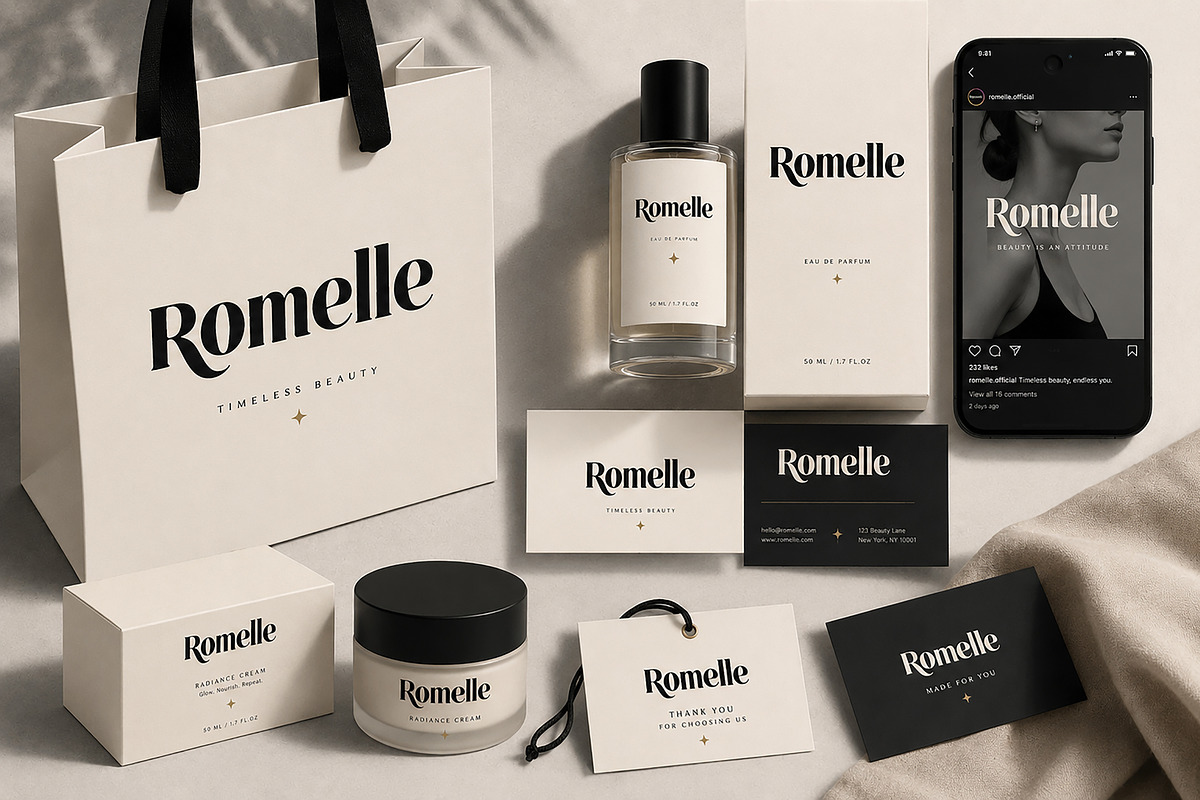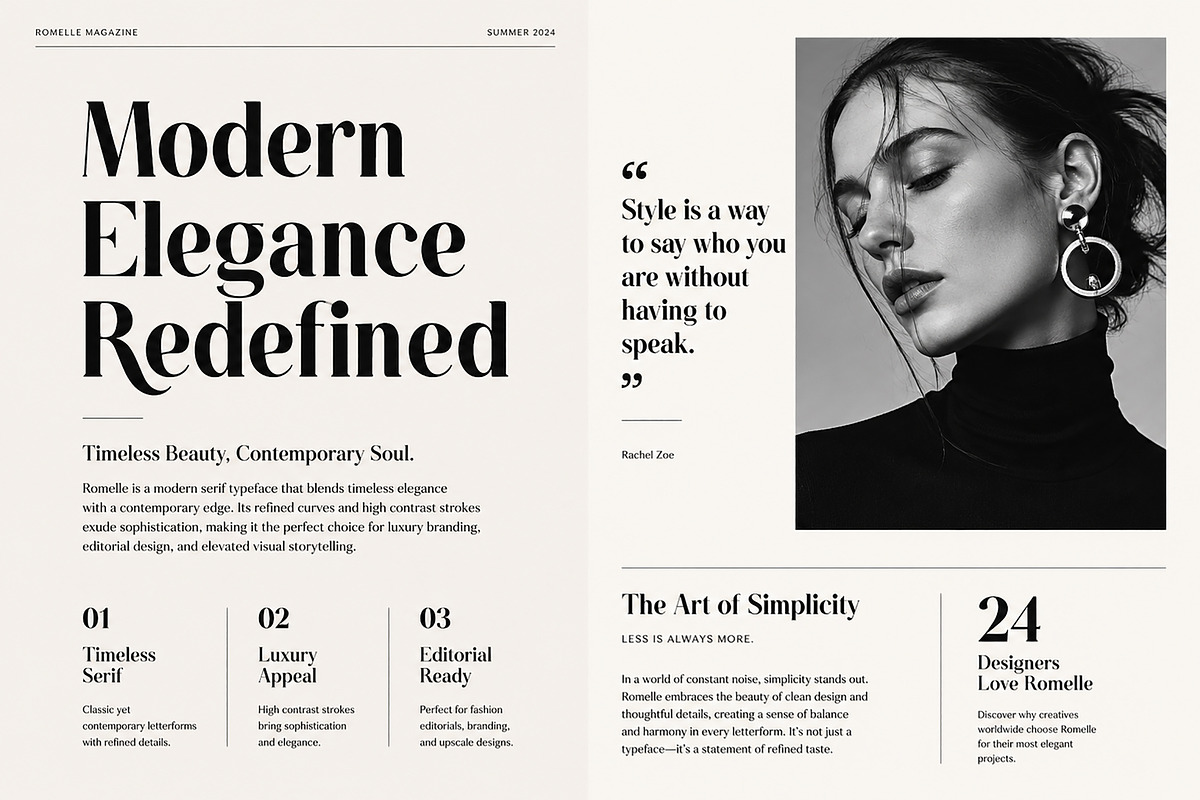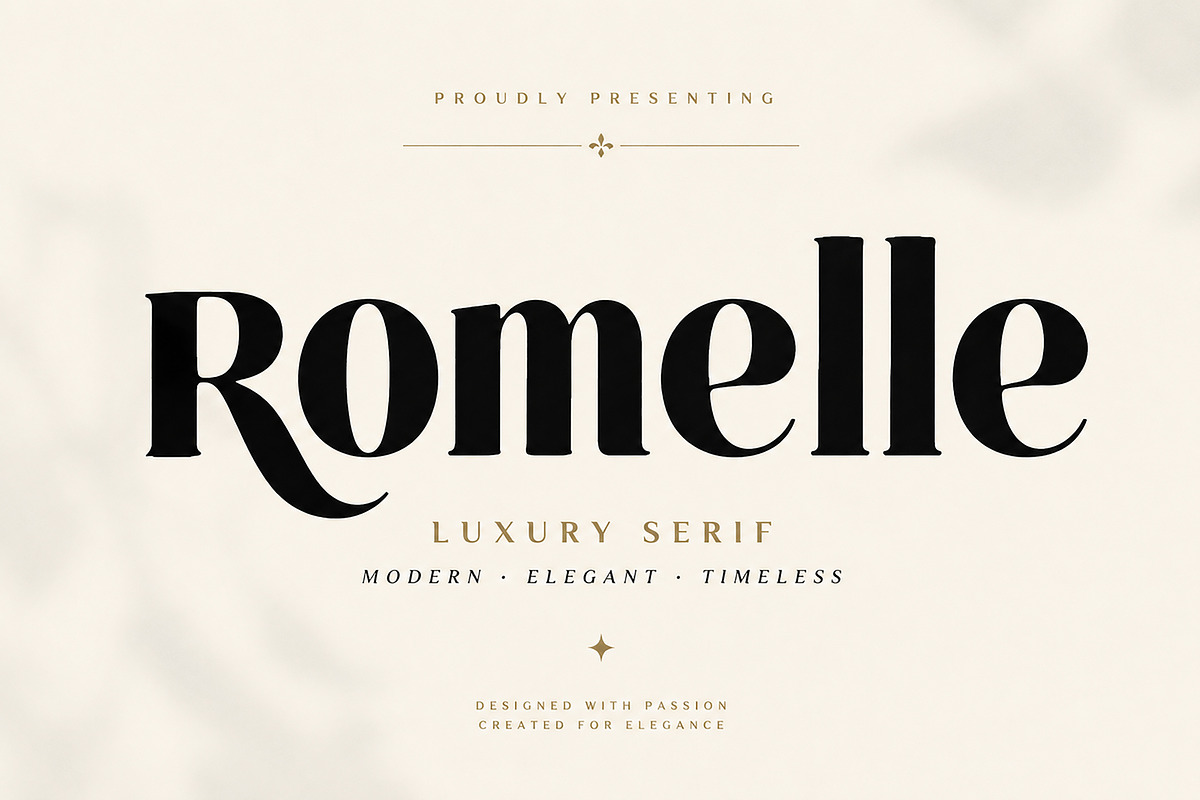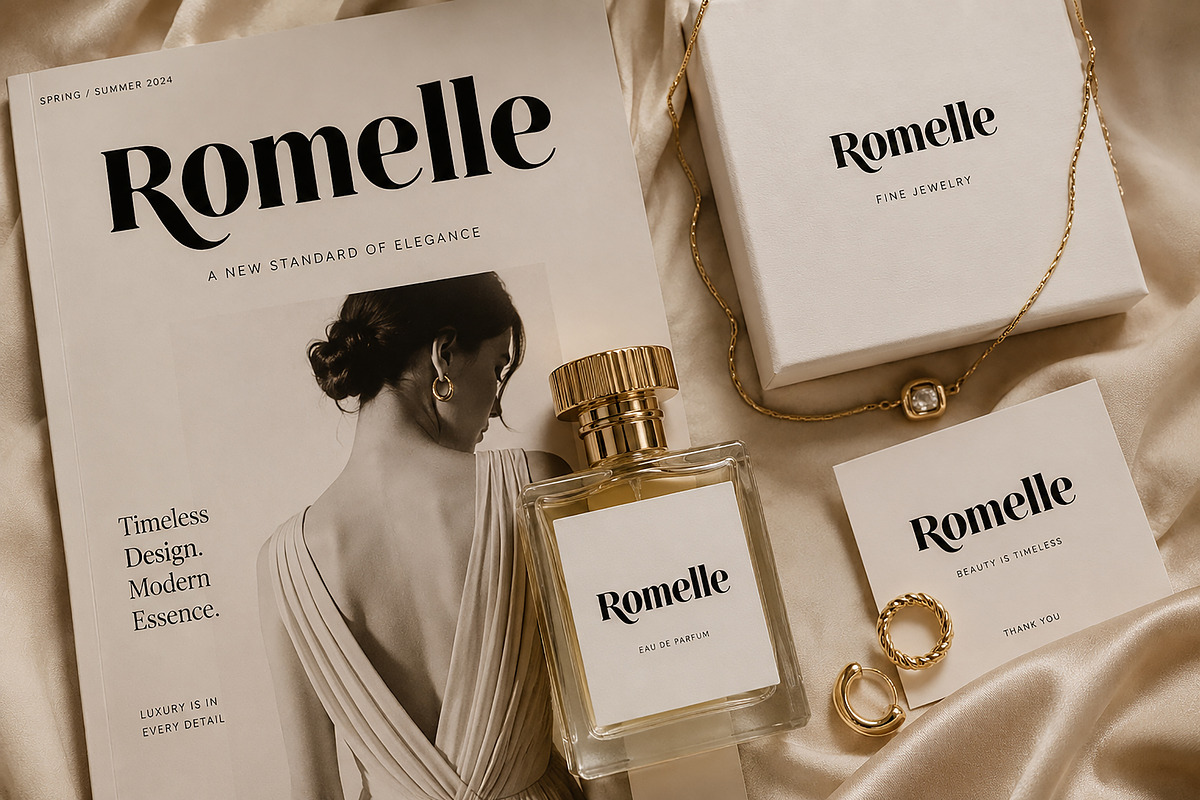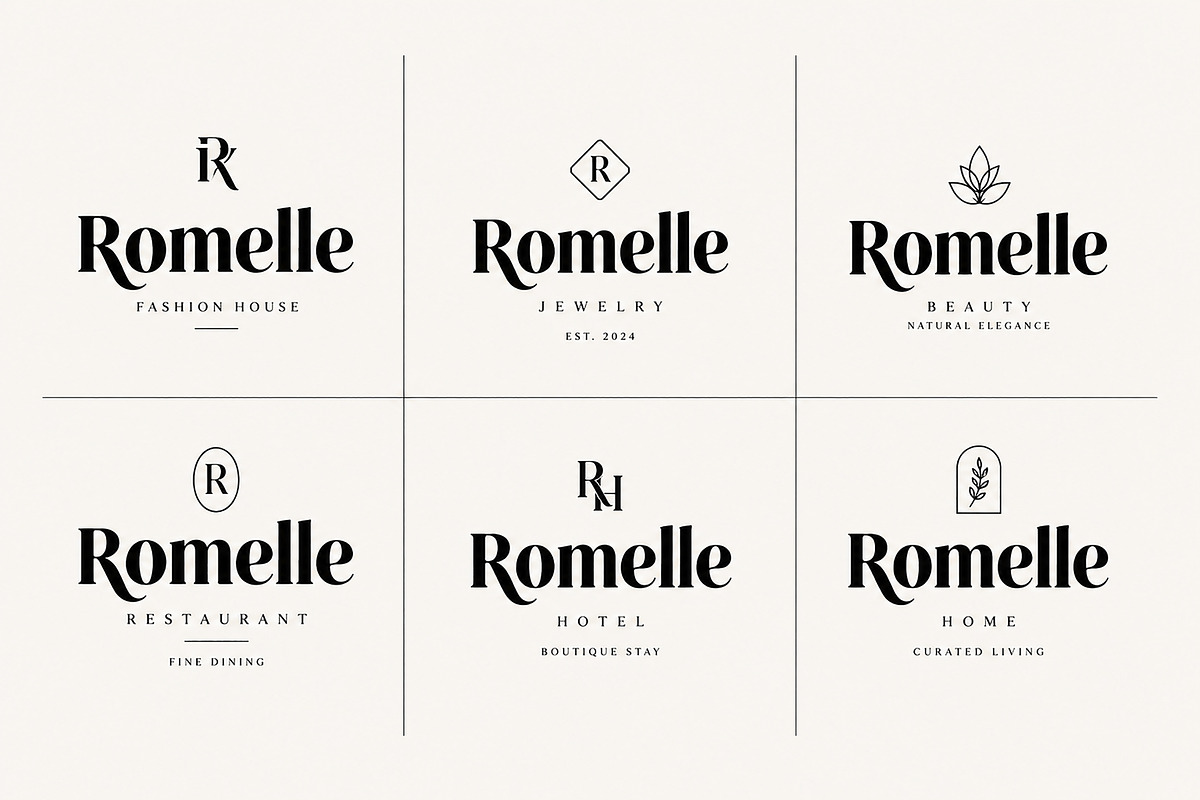
Romelle
Romelle is a modern luxury serif typeface crafted with elegance, contrast, and timeless sophistication in mind. Designed for high-end branding, fashion editorials, logo design, beauty packaging, and premium visual identities, Romelle blends classic serif beauty with a contemporary editorial touch.
Its refined curves, sharp contrast, and stylish letterforms create a bold yet graceful presence, making it perfect for designers who want to elevate their projects with a premium aesthetic.
Whether you're creating fashion logos, magazine layouts, perfume branding, boutique packaging, or social media campaigns, Romelle delivers a polished and luxurious visual impact.
Luxury Branding
Fashion Logos
Beauty & Cosmetic Packaging
Editorial Design
Magazine Headlines
Jewelry Branding
Boutique Hotel Identity
Wedding Stationery
Social Media Templates
Romelle is more than just a typeface — it’s a statement of elegance, luxury, and modern refinement.